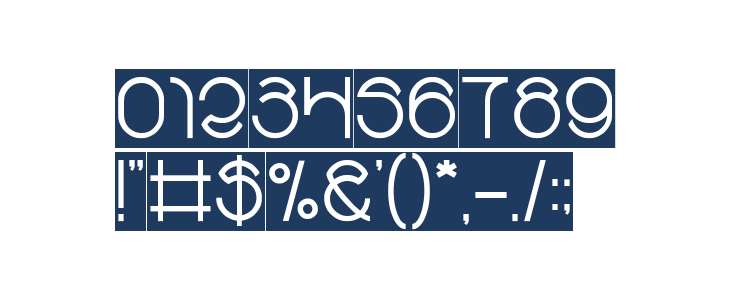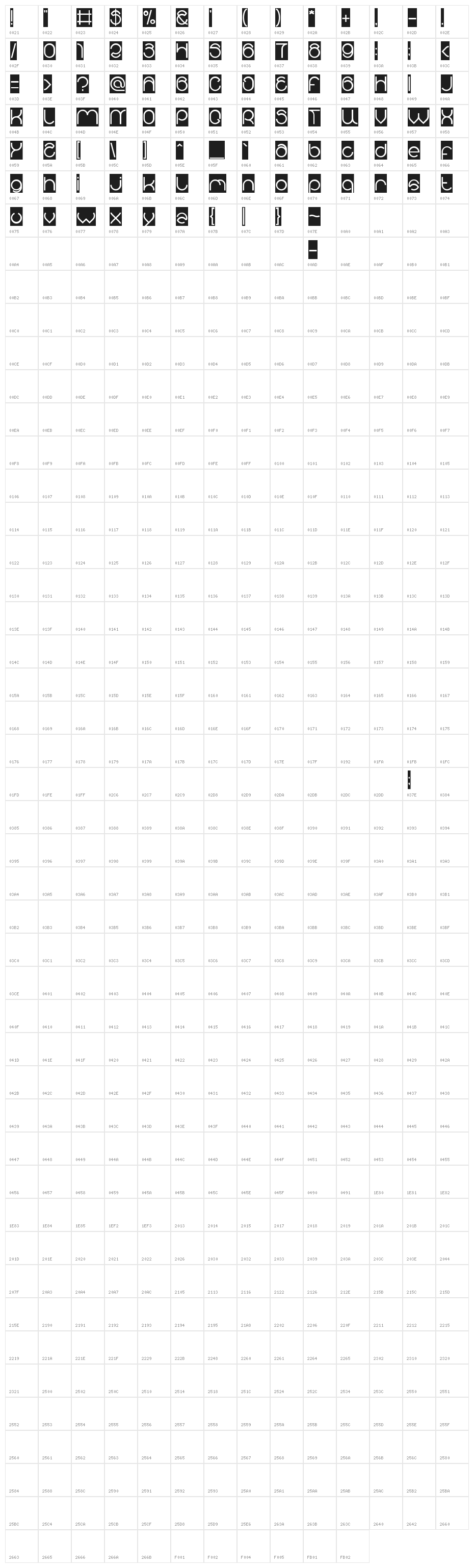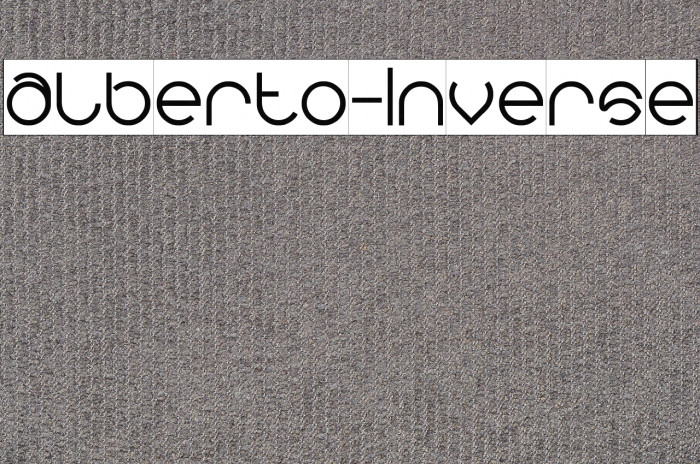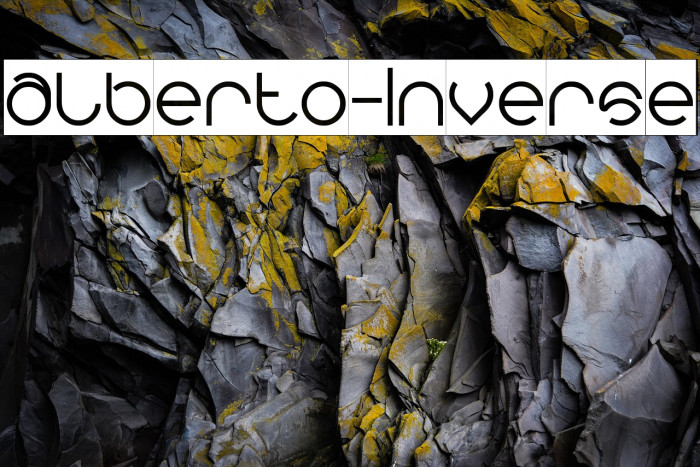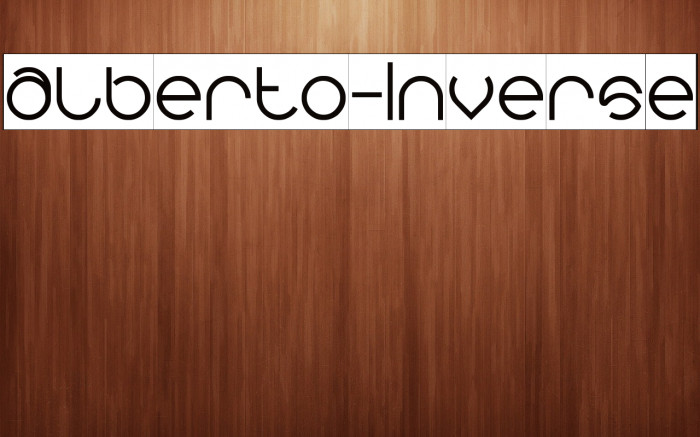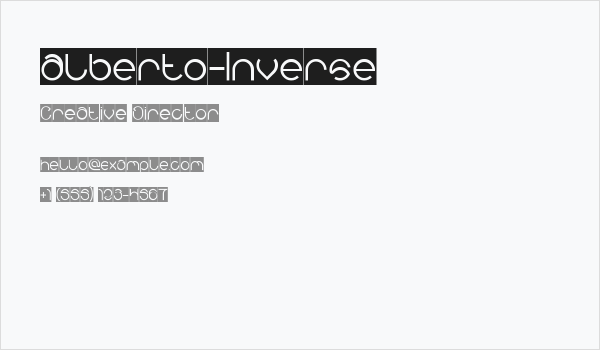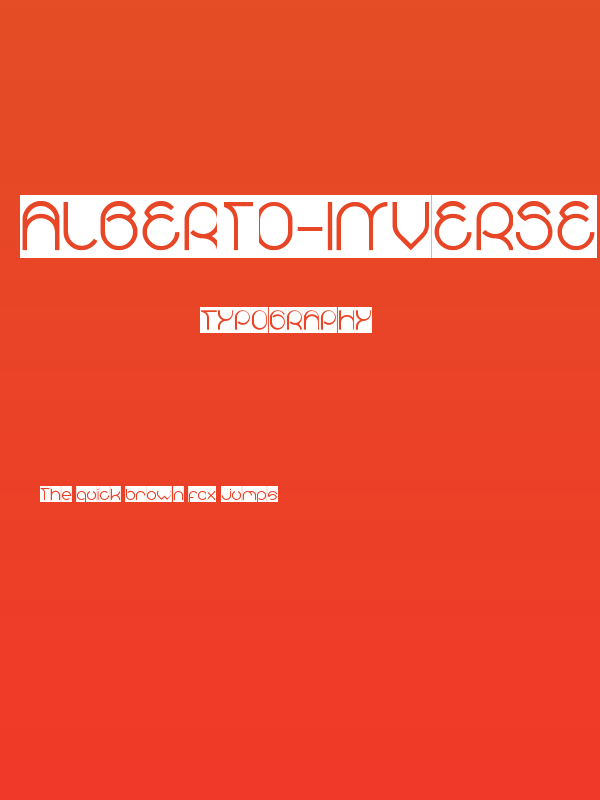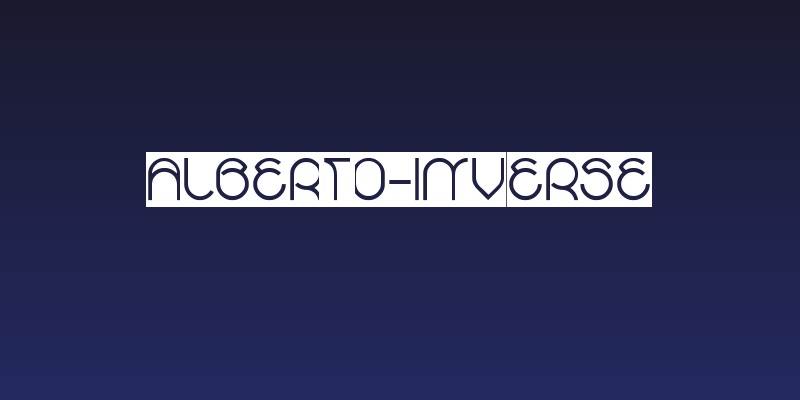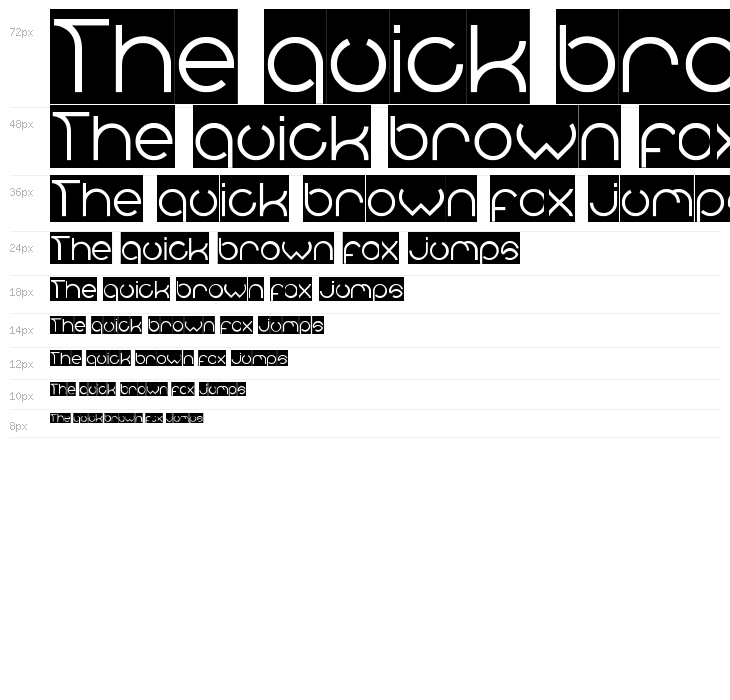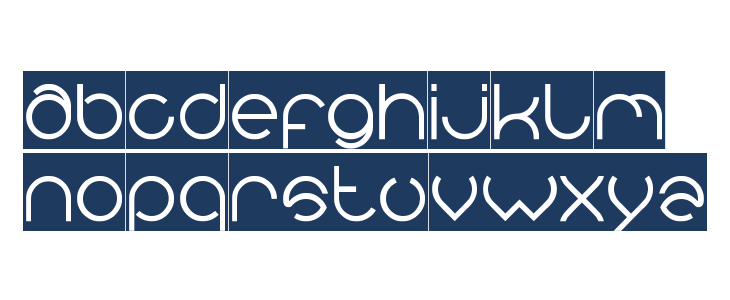
alberto-Inverse Font
alberto-Inverse Description
This font features a unique and modern design with a geometric and futuristic aesthetic. The characters are composed of clean, continuous lines with rounded edges, creating a sense of fluidity and movement. The uppercase and lowercase letters maintain a consistent style, with some characters exhibiting a playful twist or unexpected angle. The numerals and special characters are designed to match the overall theme, ensuring a cohesive look across all text. This font's distinctive style makes it stand out, offering a bold statement in any design project.
| Overall Style | Modern, Geometric, Futuristic |
| Proposed Projects | Ideal for branding, logos, posters, and digital media that require a contemporary and eye-catching typeface. |